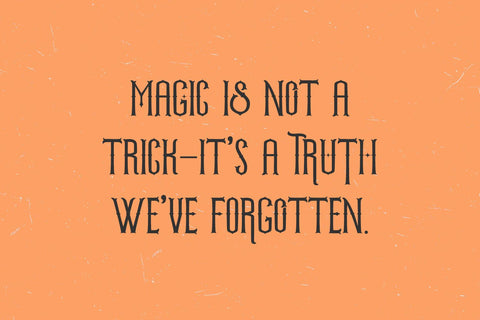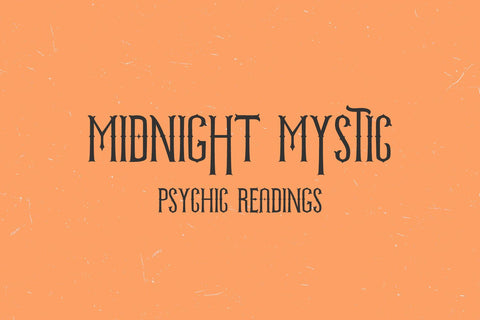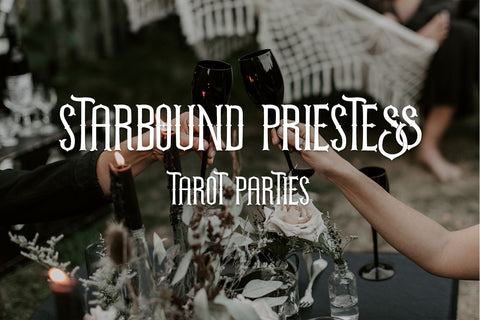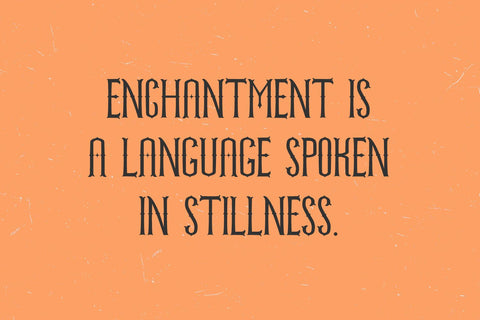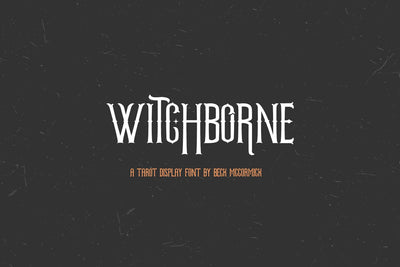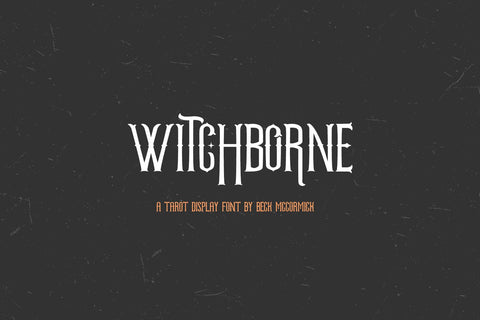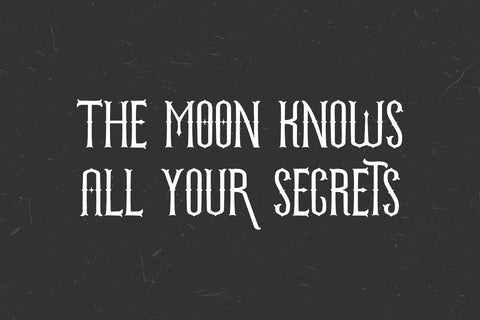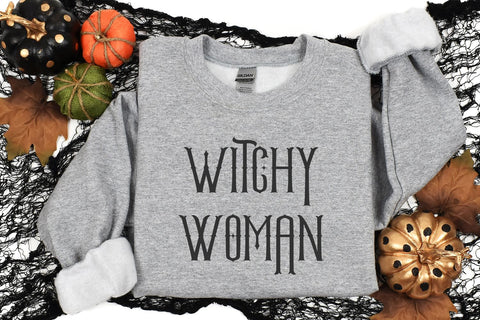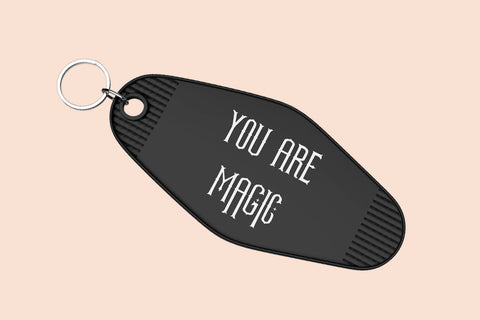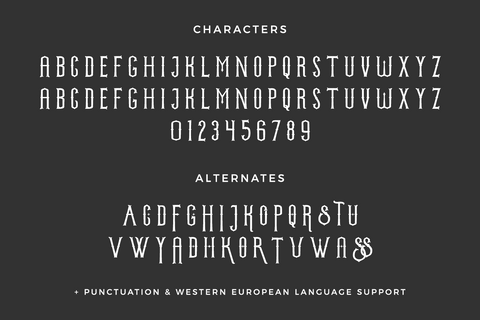
Witchborne Serif - A Tarot Card Font
Introducing Witchborne, a tarot-themed display font. Witchborne is a fantastic fit for your tarot designs, as well as anything magic, witch, or celestial. This font is well-suited for Halloween crafting projects with your Cricut or Silhouette machine, and can be used for things like shirts, signs, labels, marketing materials, social media, SVG designs, greeting cards & other print items, and even spooky logos & branding. Witchborne includes some alternate characters featuring stars, as well as flourished characters.
- full upper + lowercase characters (Witchborne is all-caps, so uppercase characters are programmed into lowercase spots for ease of use.)
- numbers + punctuation
- 29 alternates & 1 ligature